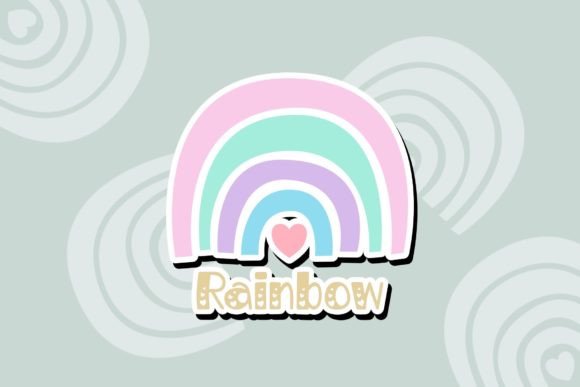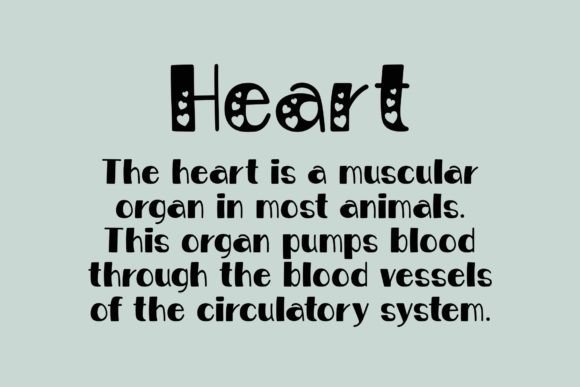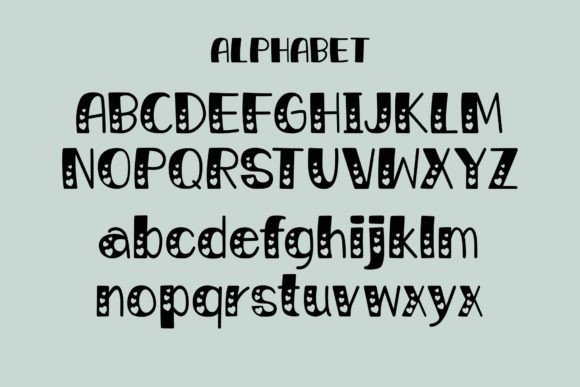
Bravo Font
Bravo is a cute Valentine’s Day-themed decorative font. Make your typography stand out with this beautiful font that has the potential to elevate any creation! It is perfect for invitations, greeting cards, DIY gifts, fabric prints, and many more.